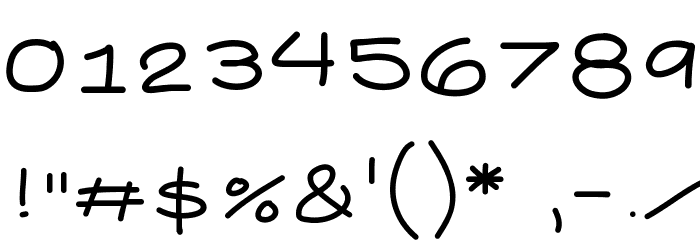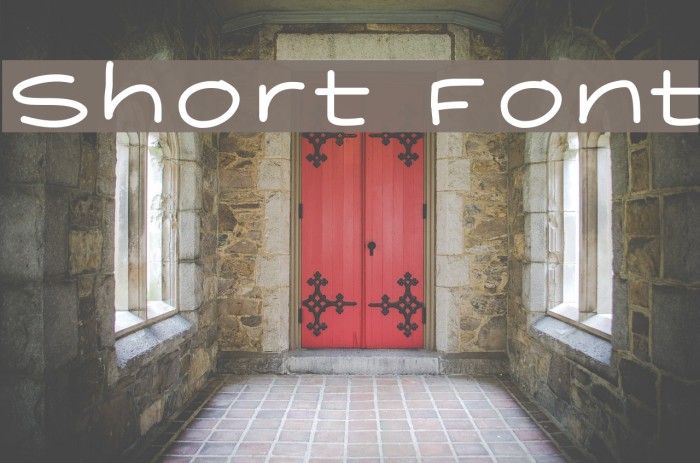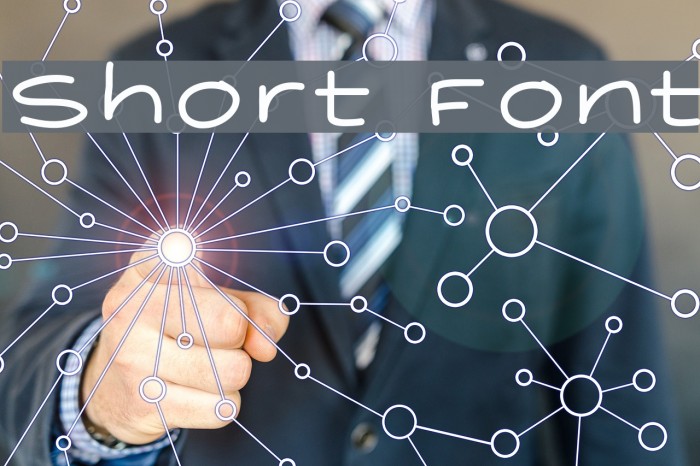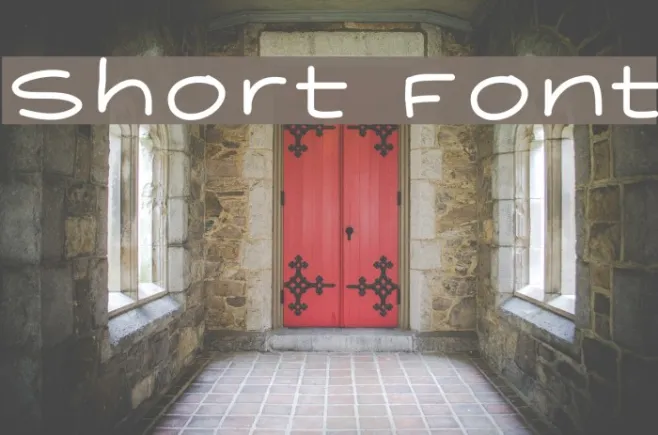
Short Font
This font features a playful and informal style with a handwritten appearance. The characters are rounded and slightly irregular, giving it a casual and friendly feel. The uppercase and lowercase letters maintain a consistent height, while the numerals and special characters complement the overall design. The strokes are uniform in thickness, contributing to a clean and approachable look. This font is well-suited for projects that require a personal touch or a relaxed vibe.
A playful, handwritten-style font with rounded, informal characters.
- Proposed Projects: Ideal for children's books, greeting cards, casual invitations, and playful branding.
- Overall Style: Casual
- Use Case: Headlines, Informal text, Branding